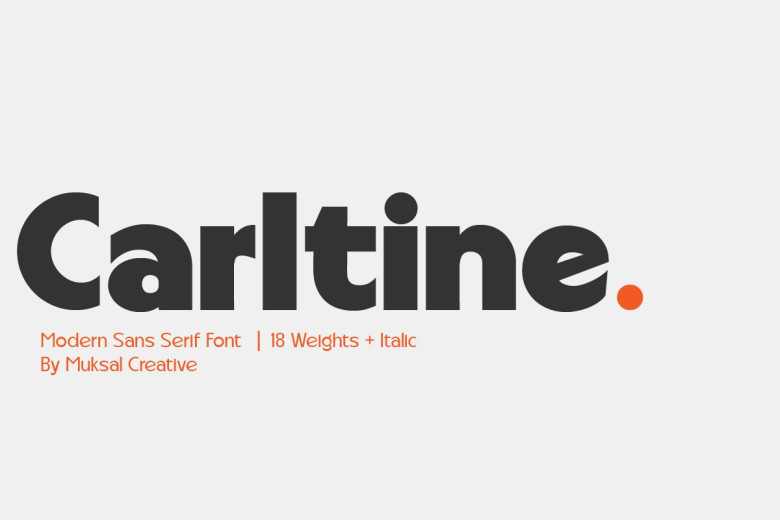
Carltine Font
Carltine is an outstanding example of contemporary sans serif design, effortlessly merging elegance and precision across various typefaces. Simply Conception boasts 18 Regular and italic font families from thin thin up to massive black fonts – making this font suitable for use across posters, magazines branding websites etc.
Carltine Sans Serif Font Family